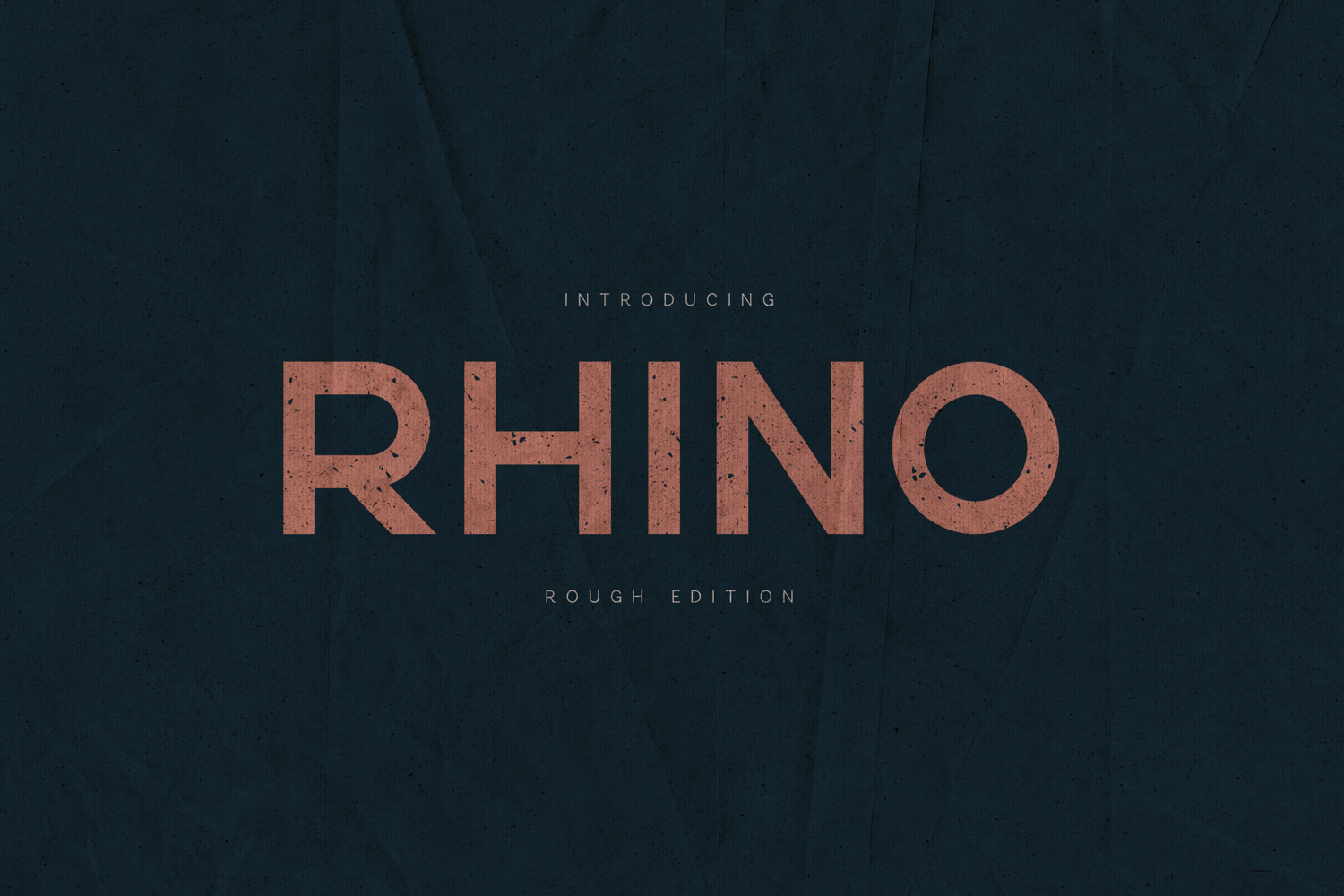
Rhino Rough Bold Distressed Display Font
Rhino Rough is a bold, powerful display font with a raw, distressed texture designed to make a strong visual impact. Inspired by industrial prints, worn posters, and modern brutalist typography, this font delivers confidence, strength, and attitude in every letterform.
Perfect for headlines, posters, branding, apparel, album covers, packaging, editorials, and social media graphics, Rhino Rough stands out while remaining highly readable. Its rugged texture adds depth and authenticity, making it ideal for projects that need a bold and expressive voice.